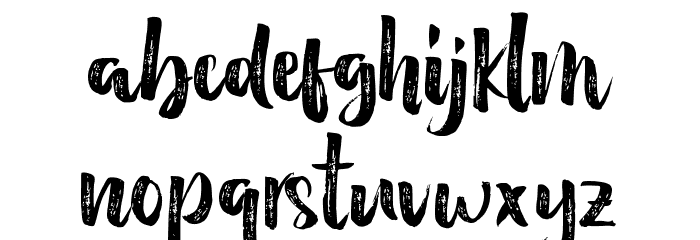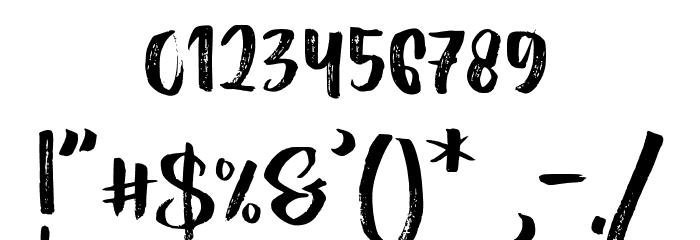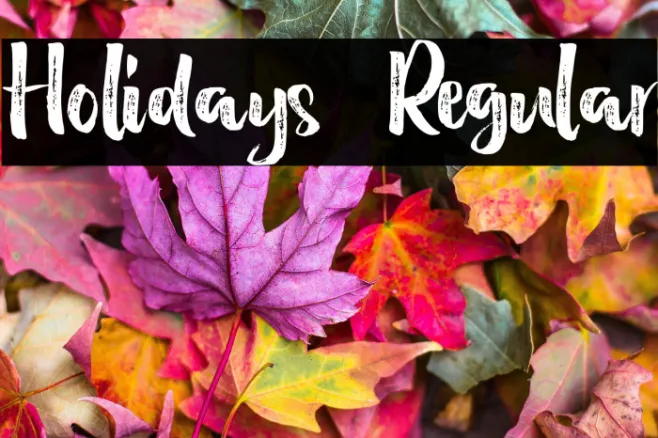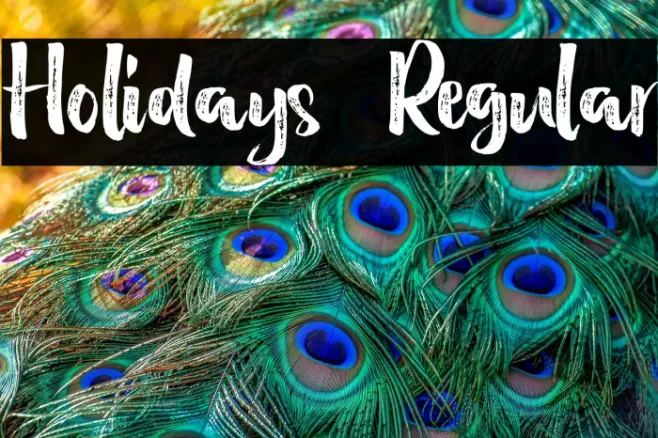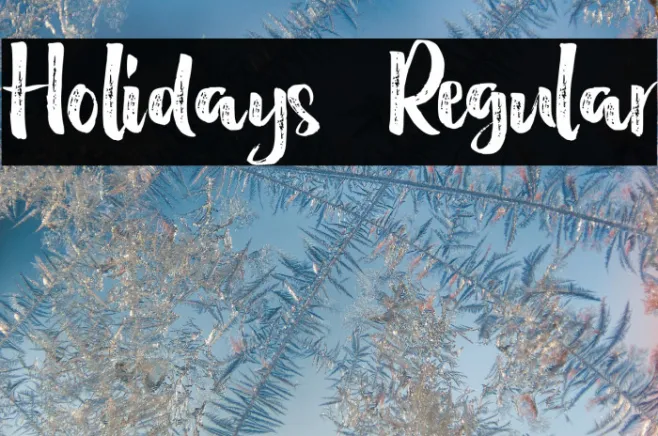
Holidays Regular Font
This font features a bold, brush script style with a hand-painted appearance. The letters are characterized by their fluid, dynamic strokes and slightly irregular edges, giving them a lively and energetic feel. The uppercase letters are tall and expressive, while the lowercase letters maintain a consistent flow, enhancing the handwritten aesthetic. The numbers and special characters follow the same stylistic approach, ensuring a cohesive look across all elements. This font is ideal for projects that require a personal, artistic touch.
A bold, brush script font with a hand-painted, dynamic style.
- Font: Holidays Regular
- Proposed Projects: Ideal for greeting cards, posters, branding, and social media graphics.